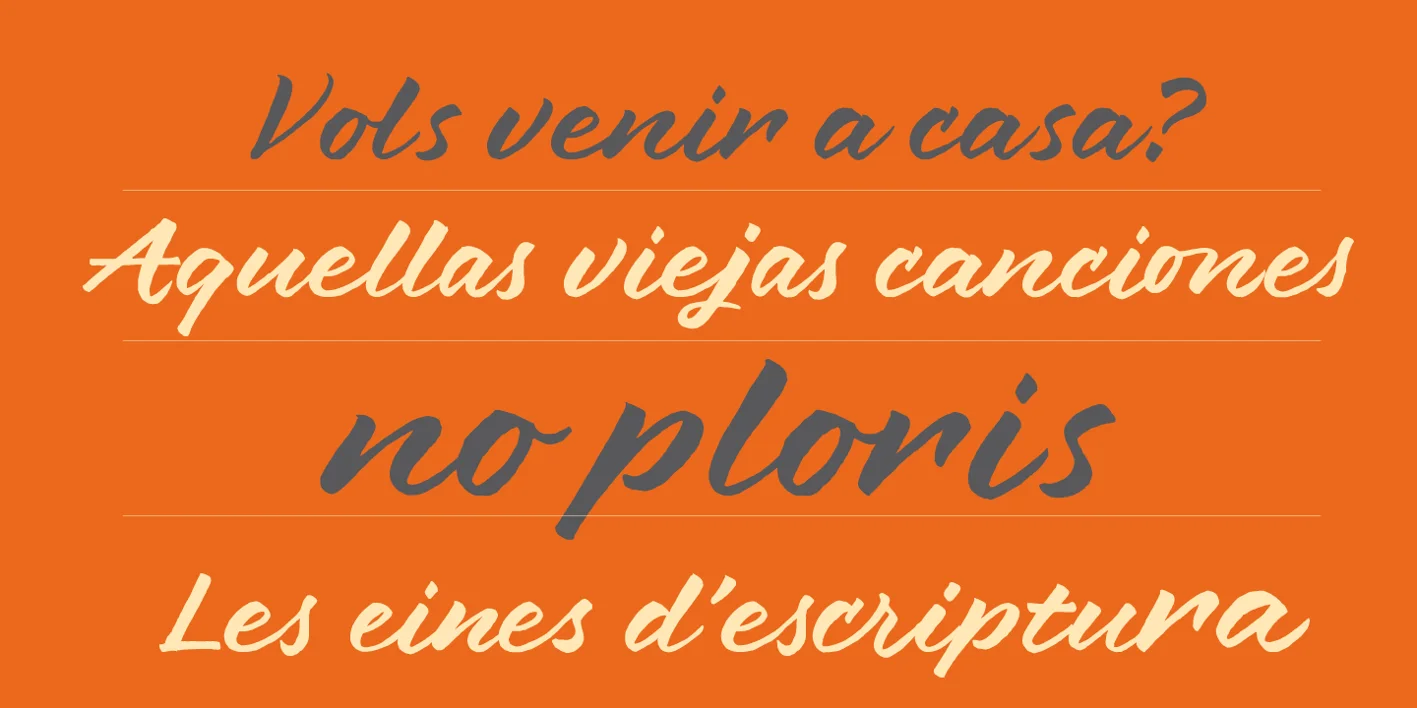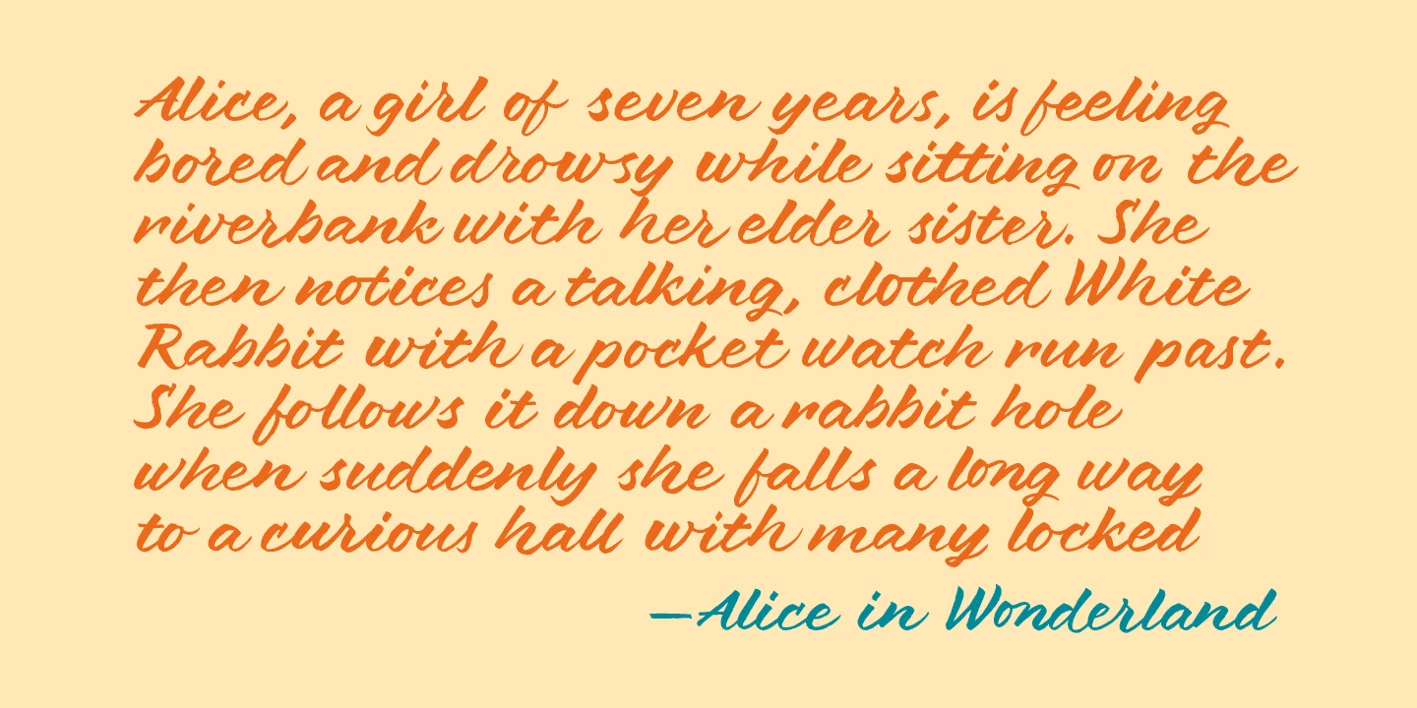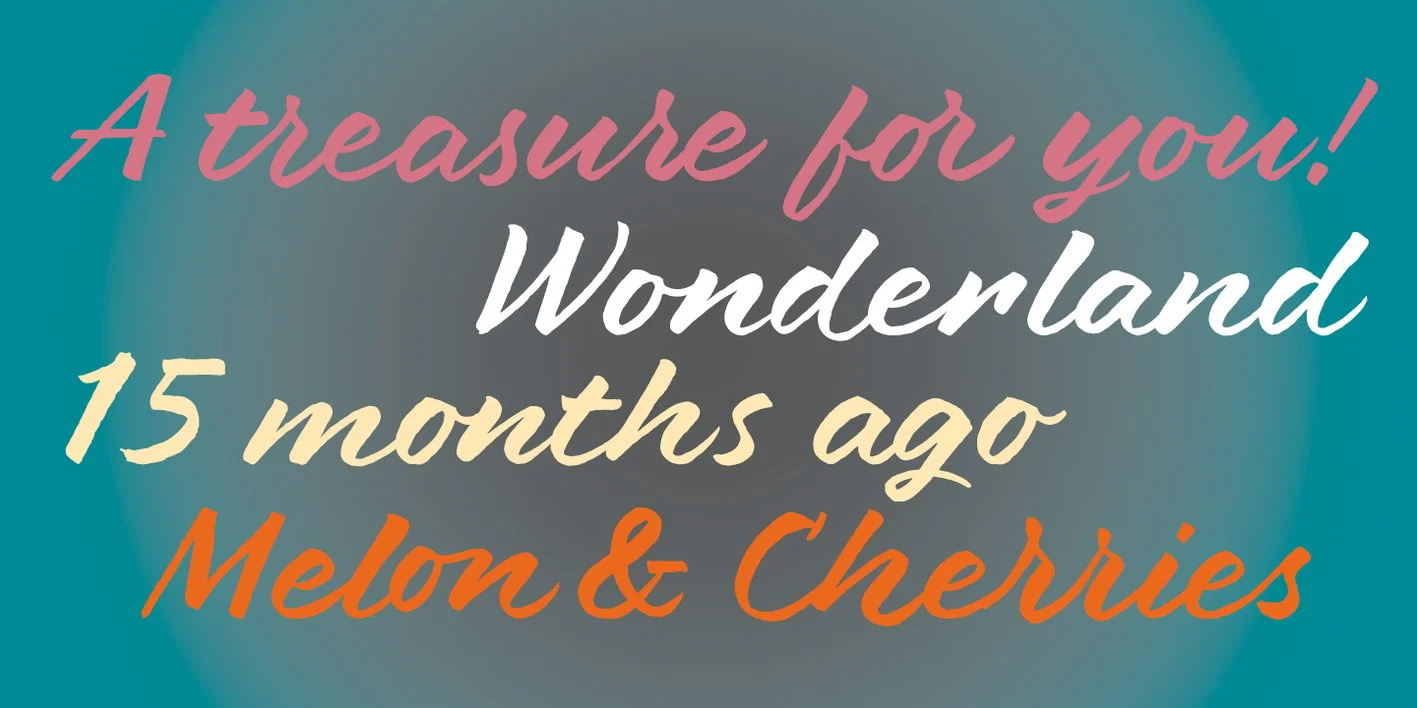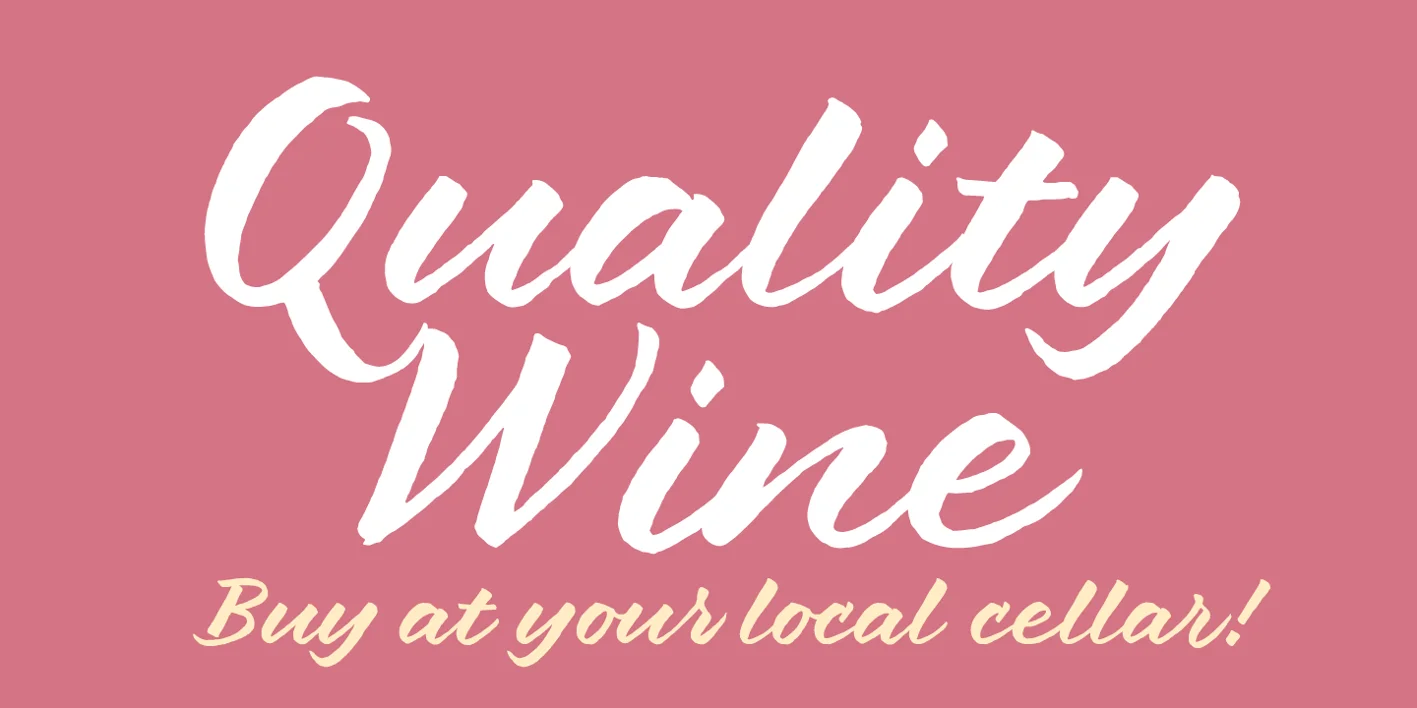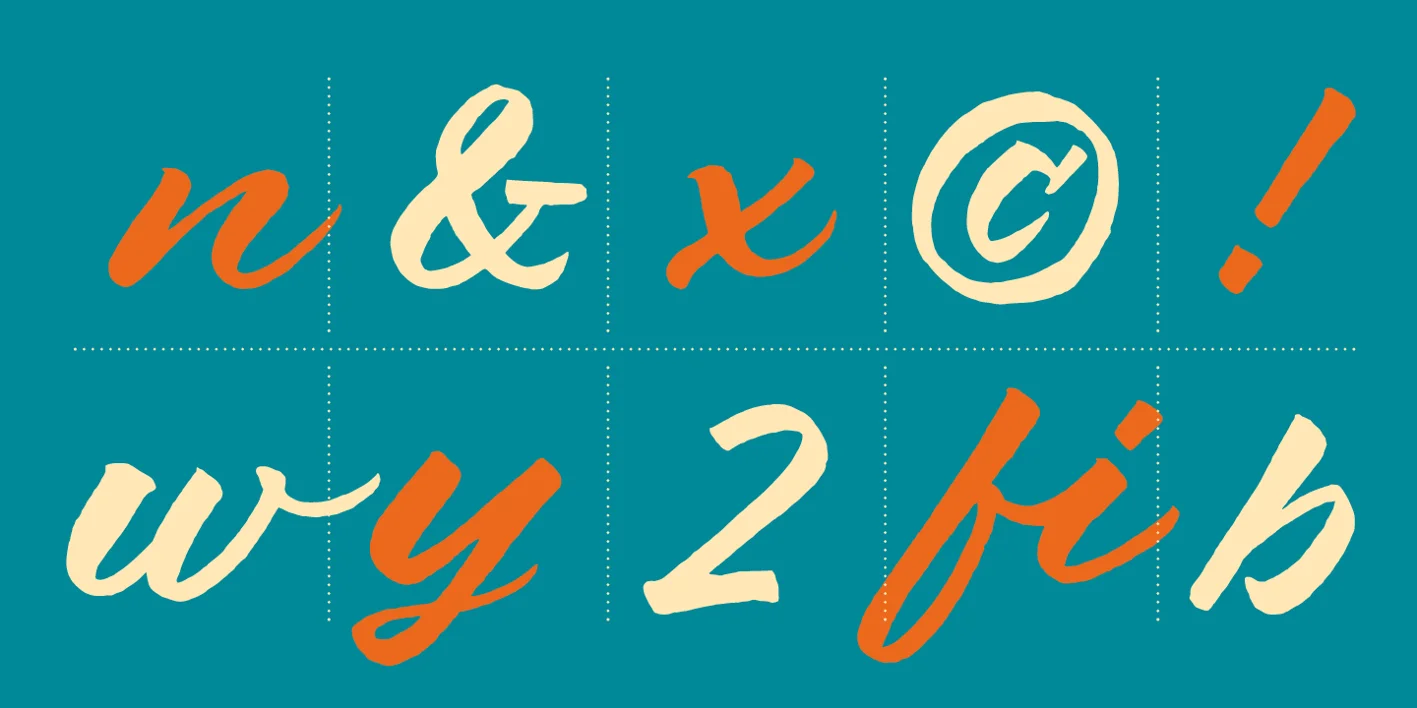
Brushland Font
Typography shapes perception at a subconscious level. Brushland leverages the kind of restraint that lets content lead to make every composition feel considered. The typeface brings a loose, expressive brush sensibility to a broad range of creative disciplines, with strong typographic hierarchy support that holds up whether the work is print-first or screen-first.
In practice, Brushland proves particularly effective for yoga studios, bohemian packaging, advertising campaigns, farm-to-table restaurant identity, social media content. Designers reaching for it find that the type decisions feel resolved rather than laboured — a useful quality when client timelines are tight.
The range of applications extends to social media graphics, brand identity systems, packaging design, coffee shop menus. That breadth is deliberate: the proportions and spacing were stress-tested across a wide range of mock briefs before the typeface was finalised.
Stroke endings carry the authentic irregularity of a real bristle brush — no two terminals are mechanically identical. Baseline bounce and variable cap heights have been calibrated so the typeface reads as handcrafted without sacrificing alignment consistency.
Brushland sits comfortably alongside both classic and contemporary typefaces in multi-font hierarchies. It takes direction rather than competing for attention — a quality that experienced designers know is harder to find than it appears.
Graphic designers working on identity systems find Brushland a reliable choice for projects that demand both personality and restraint. The design avoids the self-conscious quirkiness that dates quickly, settling instead for considered distinctiveness that holds up over time.